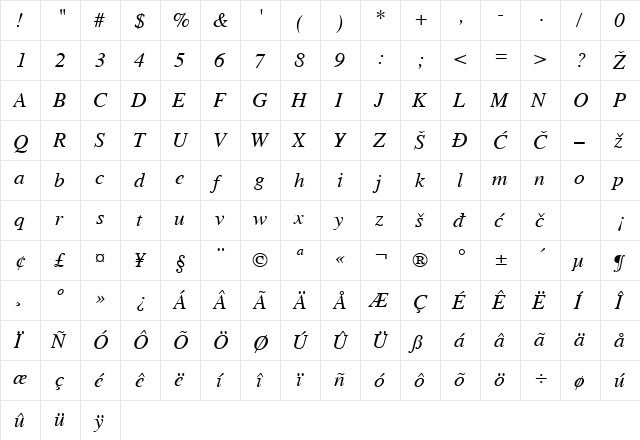
YuTimes.Italic Italic
Design Context for YuTimes.Italic Typeface
YuTimes.Italic is a composed and adaptable typeface that performs quietly and consistently across a wide range of design contexts. The dynamic lean of this cut emphasises speed and emphasis in any layout.
Pro Tip: Use YuTimes.Italic for emphasis, pull quotes, and subheadings where its slanted energy can add rhythm to the layout.